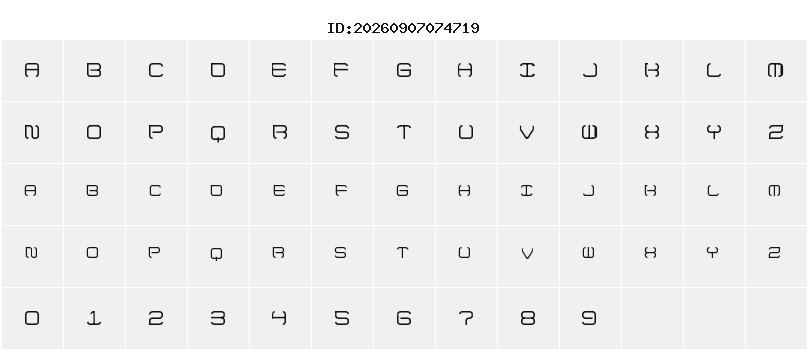
Up No Flames Preview
• Font Name: Up No Flames
• Full Font Name: Up No Flames
• Version: Version 1.00 June 11, 2008, initial release
• Character Count: 175
About Up No Flames.ttf
Up No Flames.ttf is a modern, elegant sans-serif font designed for ultimate readability and visual harmony. Perfect for branding, headlines, web design, and print materials.